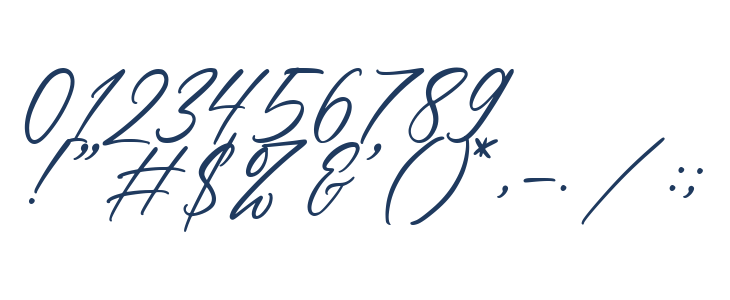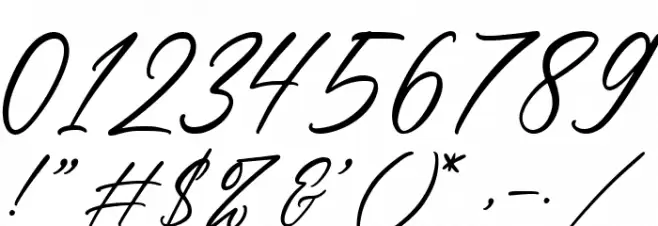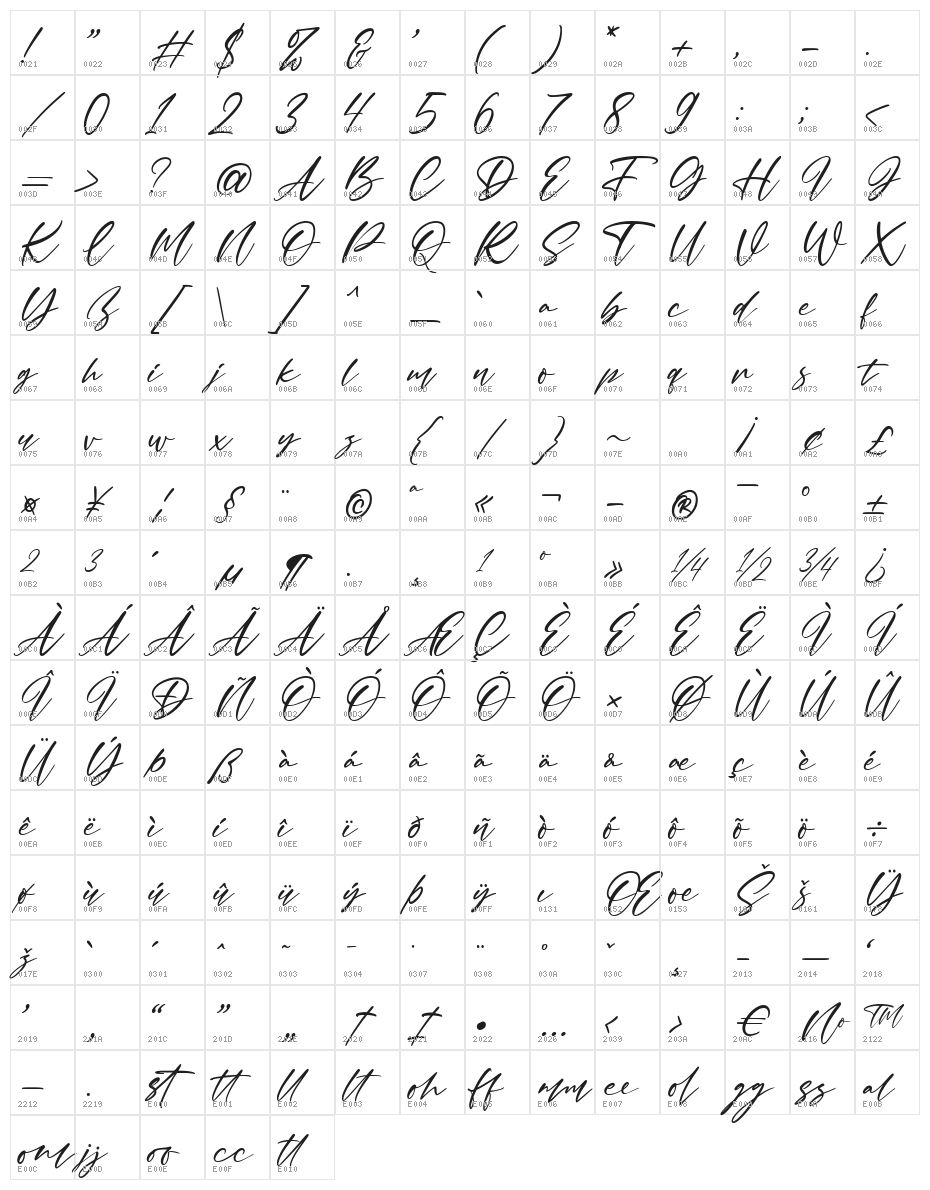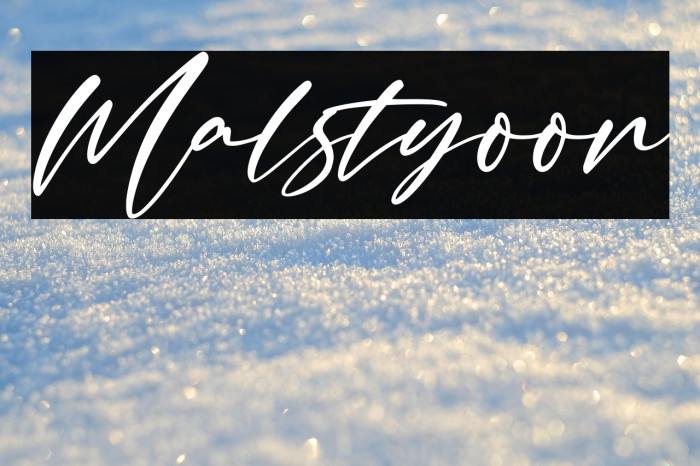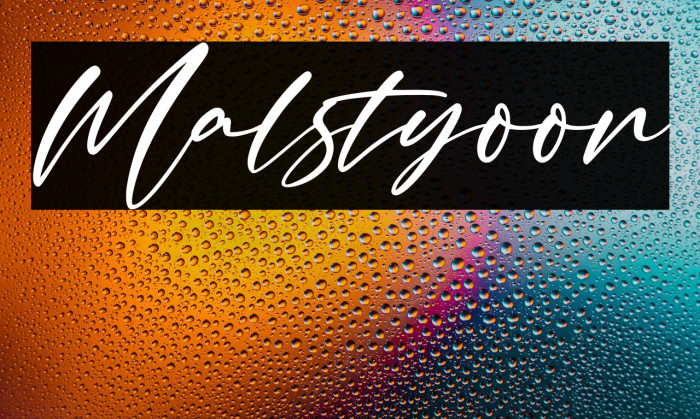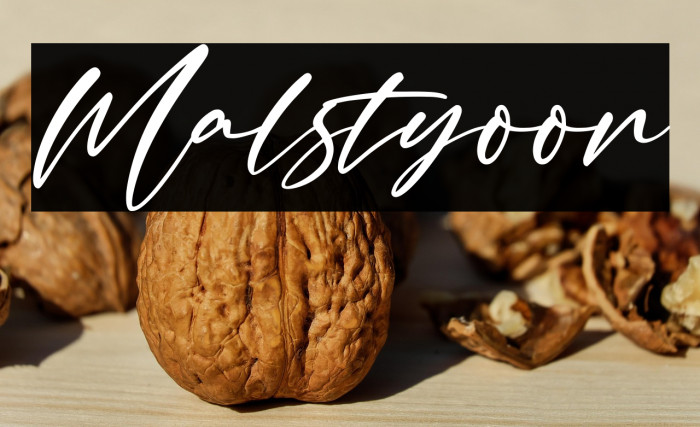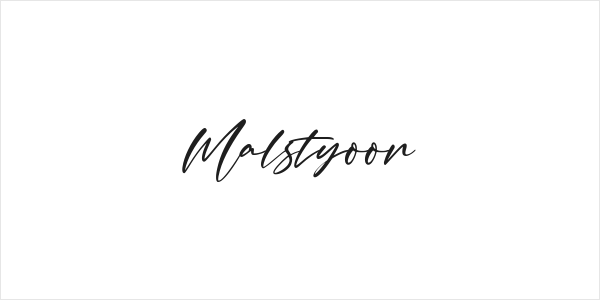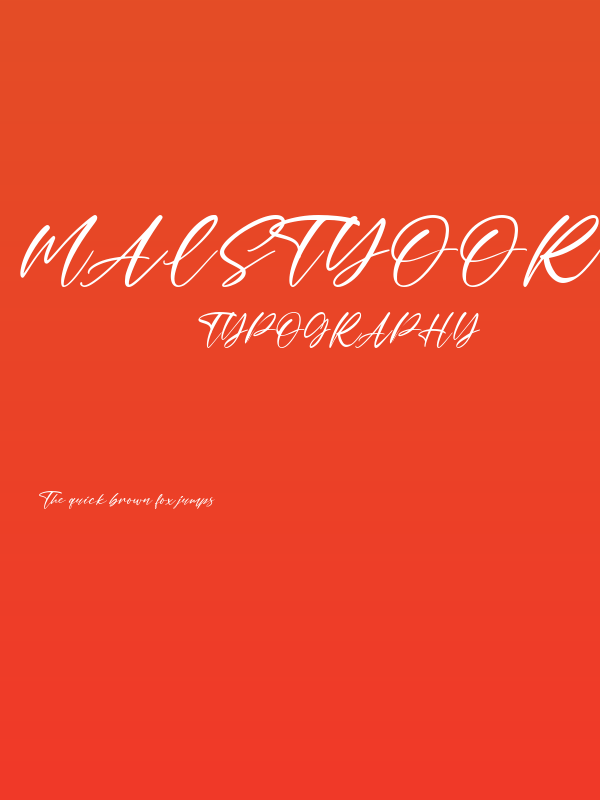
Malstyoor Font
Malstyoor Description
This font exudes a dynamic and elegant script style, characterized by its fluid, cursive strokes and a sense of movement. The letters are interconnected, creating a seamless flow that mimics natural handwriting. The uppercase letters are slightly more embellished, with loops and swirls that add a touch of sophistication. The lowercase letters maintain a consistent rhythm, enhancing readability while preserving the artistic flair. Numerals and special characters are designed to match the overall aesthetic, ensuring cohesion across all elements. The font's overall appearance is both stylish and approachable, making it suitable for a variety of creative applications.
A dynamic and elegant script font with fluid, cursive strokes from Uncategorized fonts.
- Proposed Projects: Ideal for wedding invitations, branding, greeting cards, and elegant packaging designs.
- Overall Style: Elegant, Artistic
- Use Case: Logos, Invitations, Decorative text